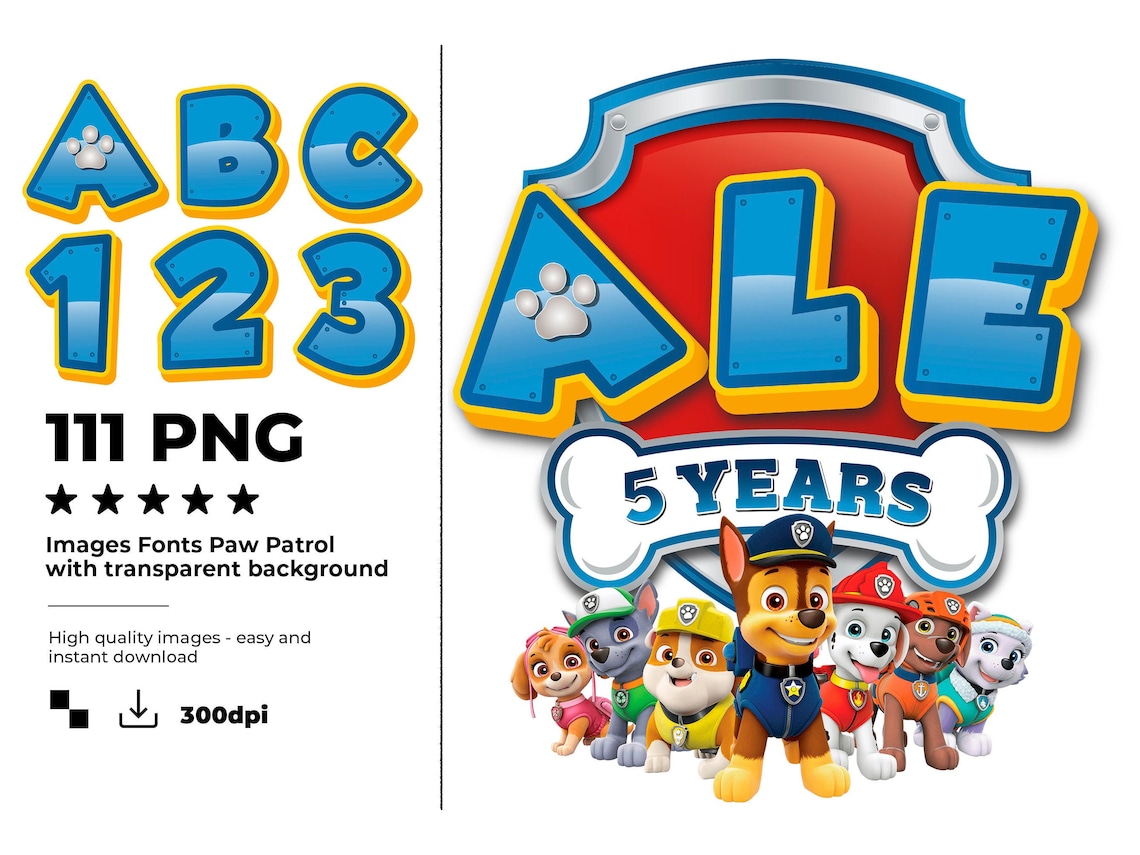
Paw Patrol Free Font - This tv series was first aired. Paw patrol font has an elegant style, as. This free font family features numerals, styles and text figures which adorn its pages. The paw patrol font family is based on an animated television show that was created by keith chapman.
The paw patrol font family is based on an animated television show that was created by keith chapman. This tv series was first aired. This free font family features numerals, styles and text figures which adorn its pages. Paw patrol font has an elegant style, as.
This tv series was first aired. The paw patrol font family is based on an animated television show that was created by keith chapman. This free font family features numerals, styles and text figures which adorn its pages. Paw patrol font has an elegant style, as.
Paw patrol font has an elegant style, as. The paw patrol font family is based on an animated television show that was created by keith chapman. This tv series was first aired. This free font family features numerals, styles and text figures which adorn its pages.
This tv series was first aired. Paw patrol font has an elegant style, as. The paw patrol font family is based on an animated television show that was created by keith chapman. This free font family features numerals, styles and text figures which adorn its pages.
This free font family features numerals, styles and text figures which adorn its pages. The paw patrol font family is based on an animated television show that was created by keith chapman. This tv series was first aired. Paw patrol font has an elegant style, as.
This tv series was first aired. The paw patrol font family is based on an animated television show that was created by keith chapman. This free font family features numerals, styles and text figures which adorn its pages. Paw patrol font has an elegant style, as.
The paw patrol font family is based on an animated television show that was created by keith chapman. Paw patrol font has an elegant style, as. This tv series was first aired. This free font family features numerals, styles and text figures which adorn its pages.
The paw patrol font family is based on an animated television show that was created by keith chapman. This free font family features numerals, styles and text figures which adorn its pages. Paw patrol font has an elegant style, as. This tv series was first aired.
The paw patrol font family is based on an animated television show that was created by keith chapman. This tv series was first aired. This free font family features numerals, styles and text figures which adorn its pages. Paw patrol font has an elegant style, as.
The paw patrol font family is based on an animated television show that was created by keith chapman. This free font family features numerals, styles and text figures which adorn its pages. This tv series was first aired. Paw patrol font has an elegant style, as.
Paw patrol font has an elegant style, as. This free font family features numerals, styles and text figures which adorn its pages. This tv series was first aired. The paw patrol font family is based on an animated television show that was created by keith chapman.
Paw Patrol Font Has An Elegant Style, As.
This tv series was first aired. The paw patrol font family is based on an animated television show that was created by keith chapman. This free font family features numerals, styles and text figures which adorn its pages.